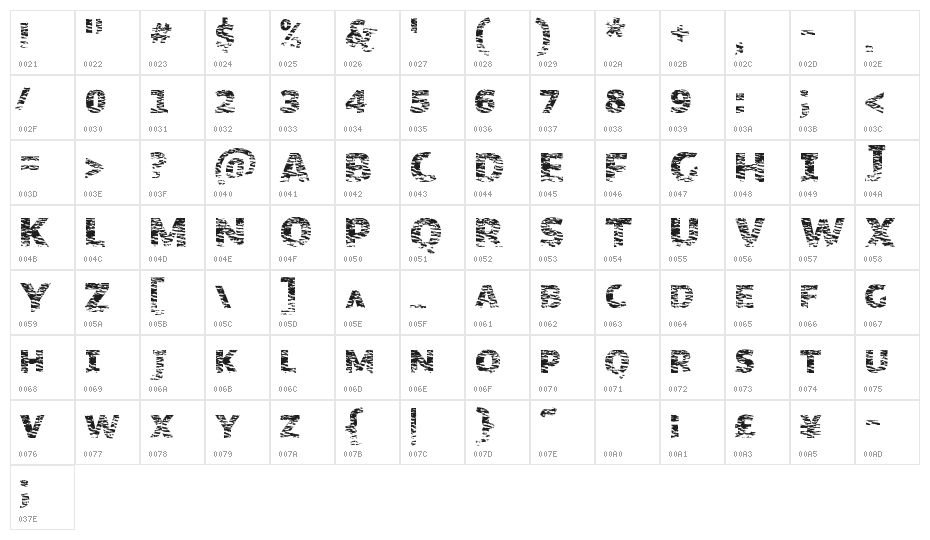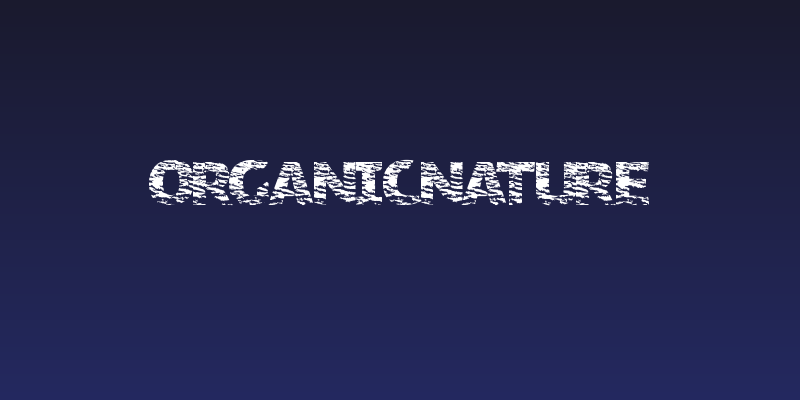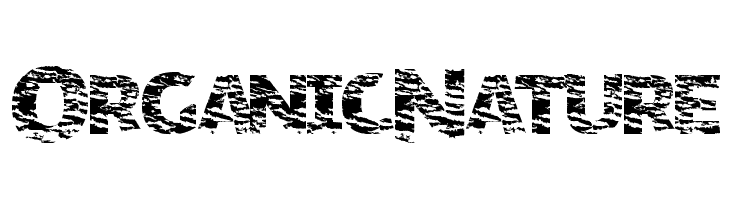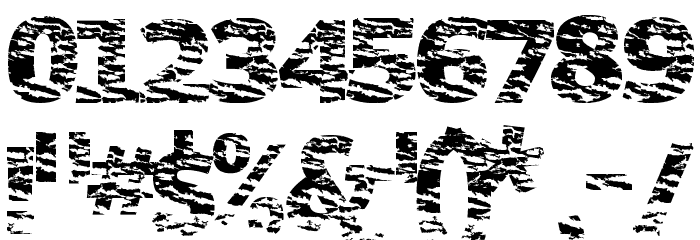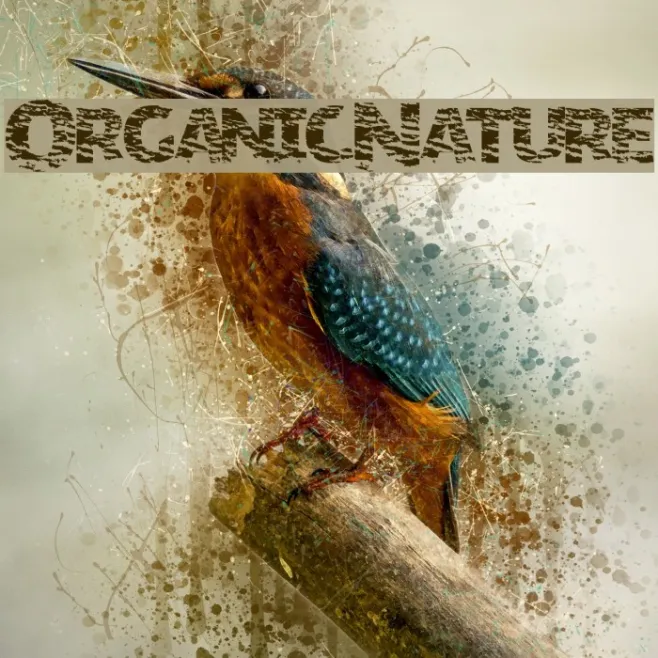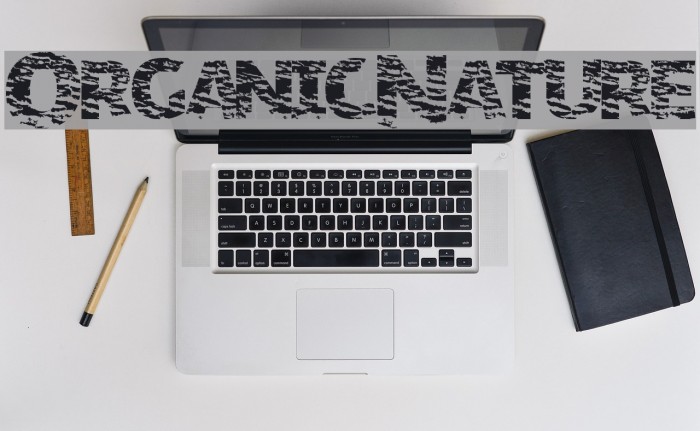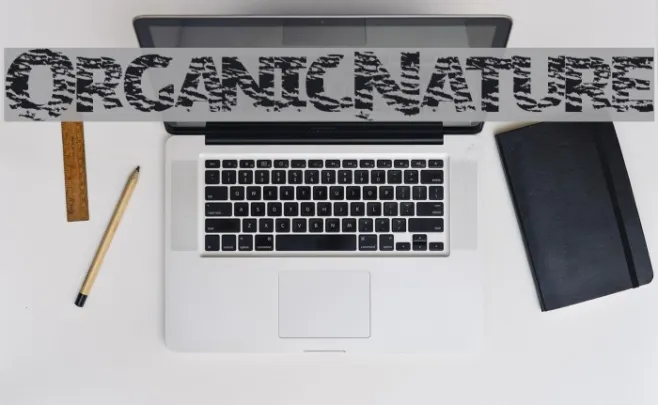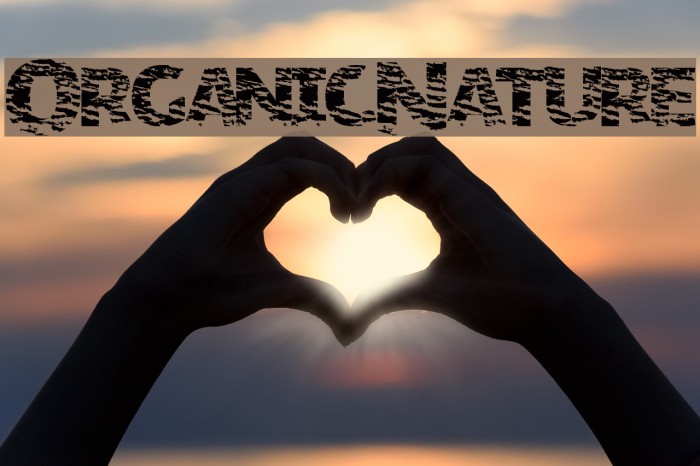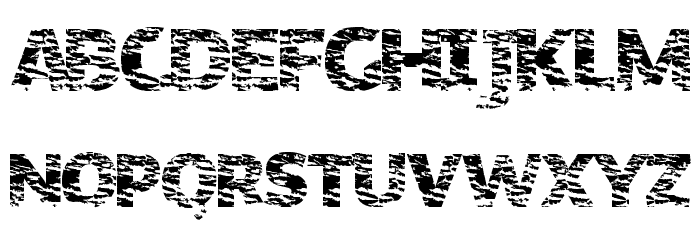
OrganicNature Font
OrganicNature Description
This font features a bold, distressed texture that gives it a rugged and organic appearance. The characters are uppercase and lowercase with a consistent, rough pattern that mimics natural erosion or decay. The numbers and special characters follow the same design, ensuring a cohesive look across all glyphs. The font's unique style makes it stand out, ideal for projects that require a natural or earthy aesthetic. Its boldness ensures readability while the distressed effect adds character and depth.
| Proposed Projects | Ideal for eco-friendly branding, outdoor adventure posters, rustic-themed invitations, and environmental awareness campaigns. |